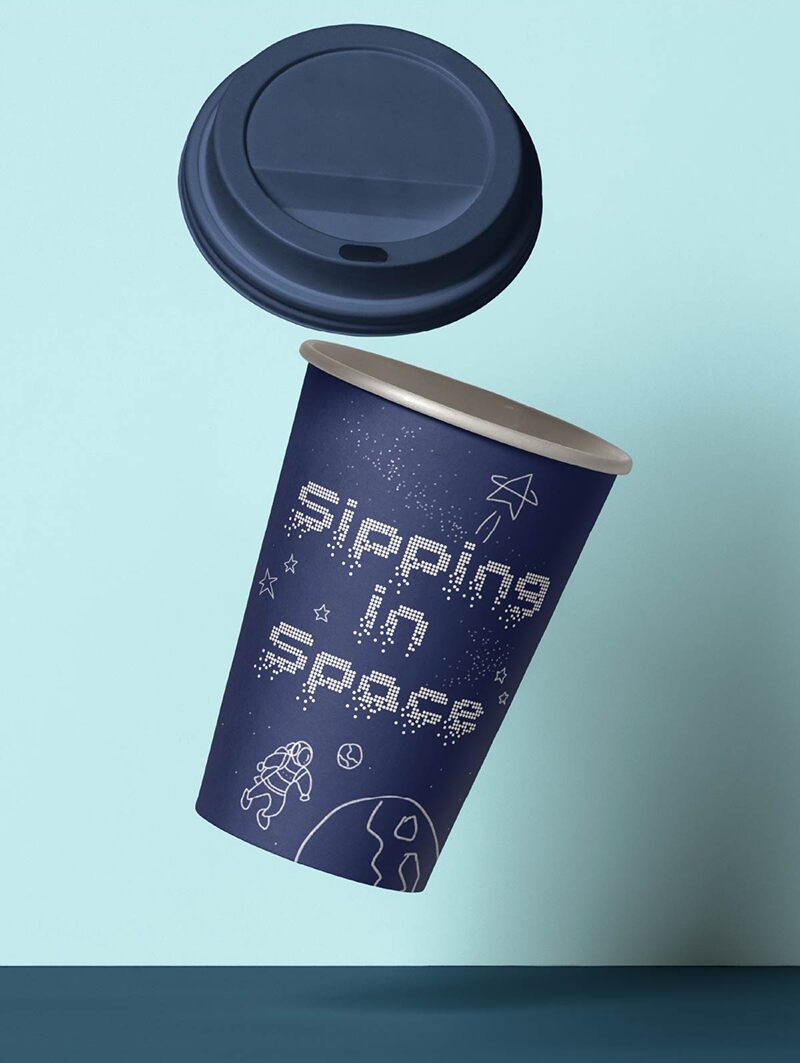
Introducing HF Hourglass, a striking display font designed by HyFont Studio. With its semi-bold weight and expanded width, this font is perfect for projects that require a bold and eye-catching appearance.
Its digital style adds a modern touch, making it ideal for website headers, logos, and branding materials. Whether you're designing a technology blog or an innovative software interface, HF Hourglass will bring your digital creations to life with its unique and captivating aesthetic.